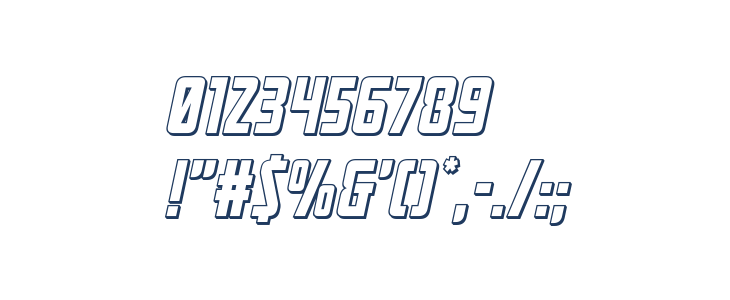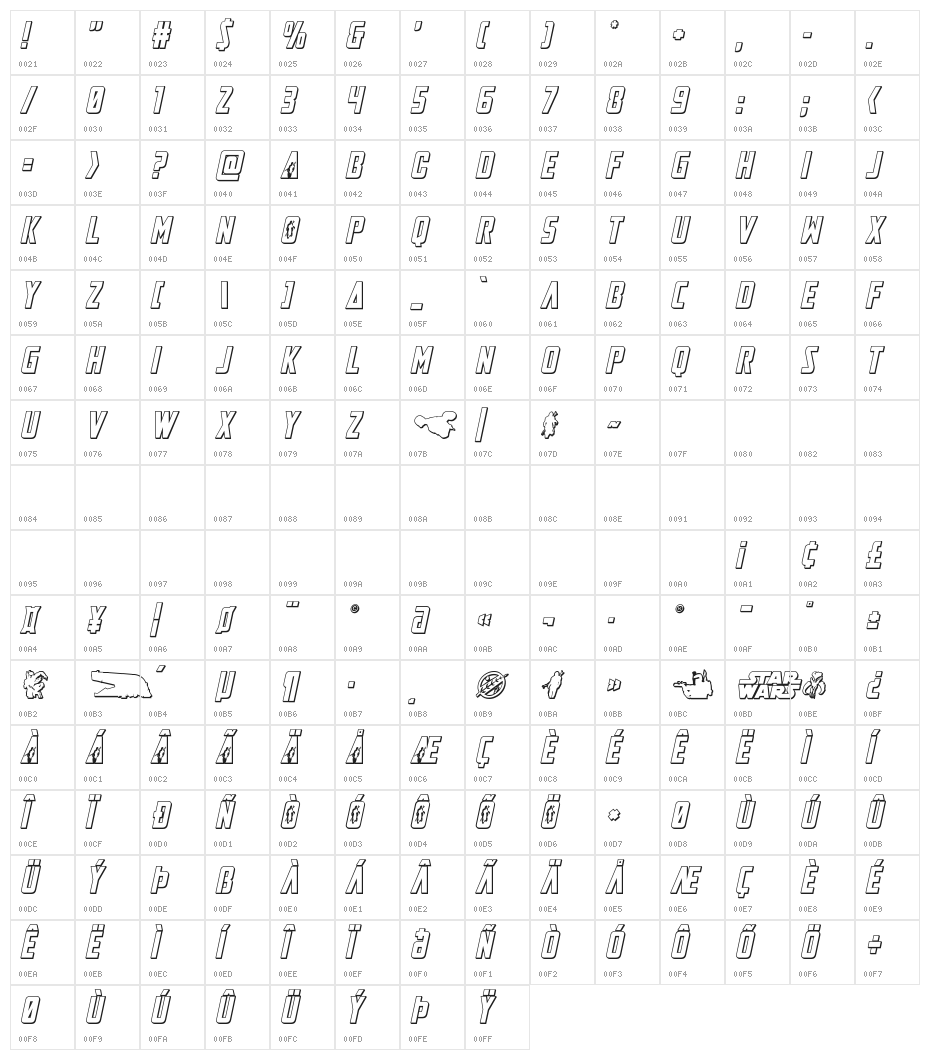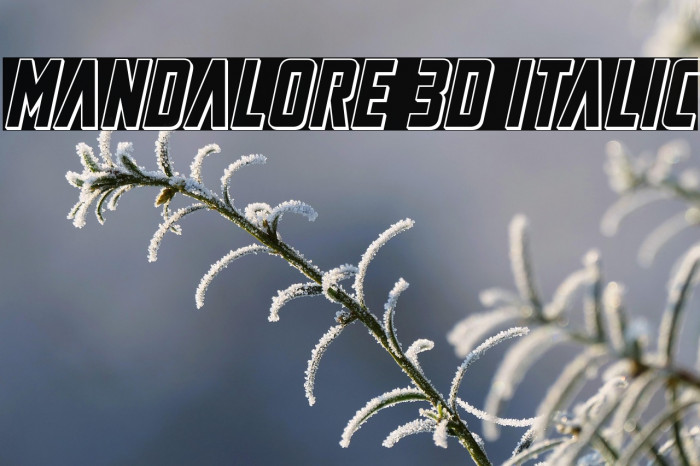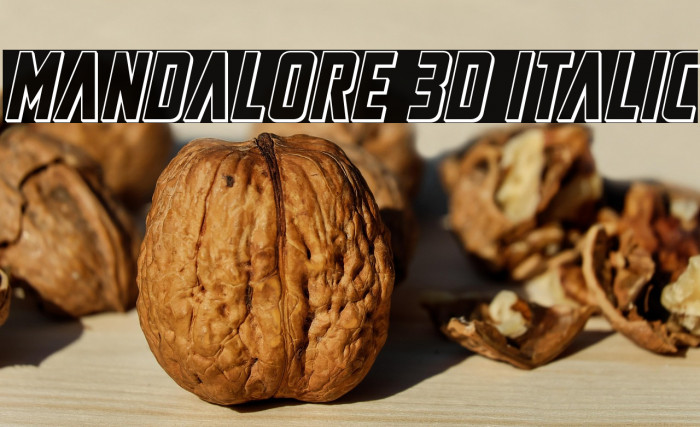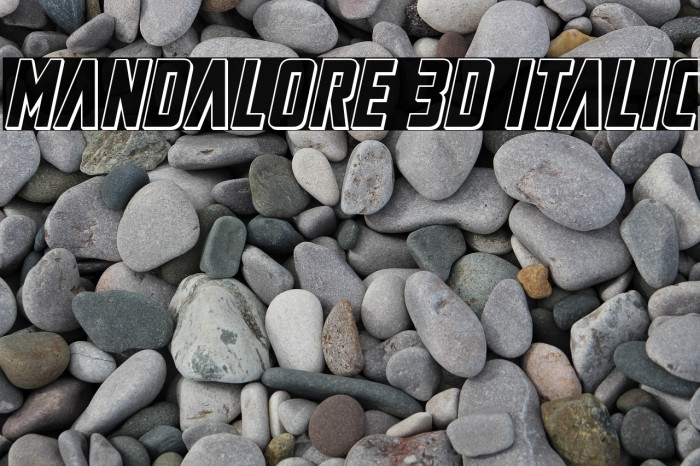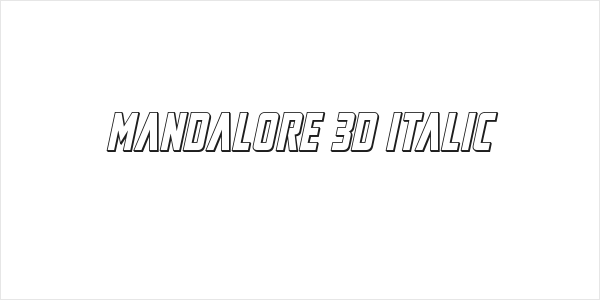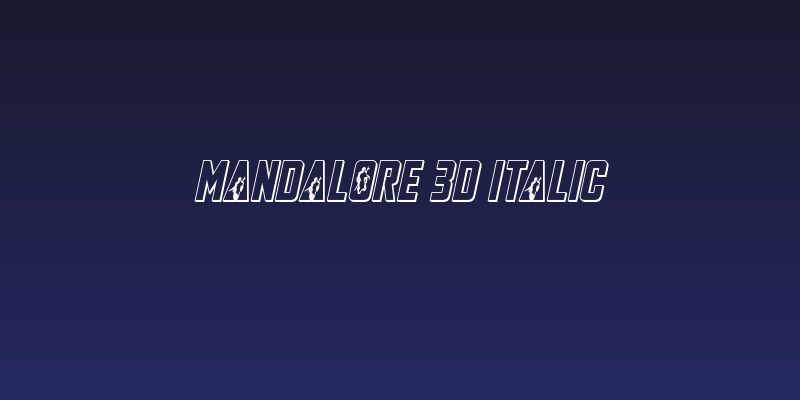
Mandalore 3D Italic Font
Mandalore 3D Italic Description
This font features a bold, three-dimensional design with an italic slant, creating a dynamic and futuristic appearance. The characters are outlined, giving them a hollow look that enhances the 3D effect. Each letter is angular and geometric, contributing to a modern and edgy style. The uppercase and lowercase letters maintain a consistent design, while the numerals and special characters complement the overall aesthetic. This font is visually striking and ideal for projects that require a strong, impactful presence.
| Proposed Projects | Ideal for video game titles, sci-fi movie posters, tech branding, and futuristic event flyers. |